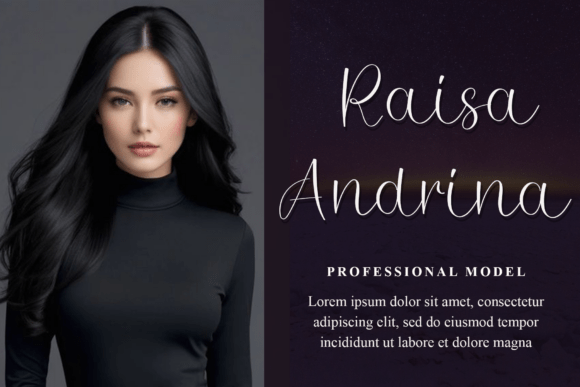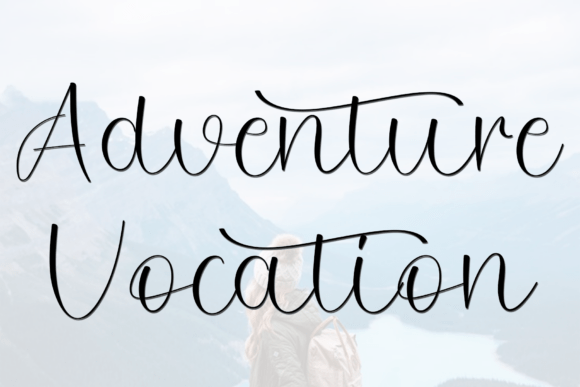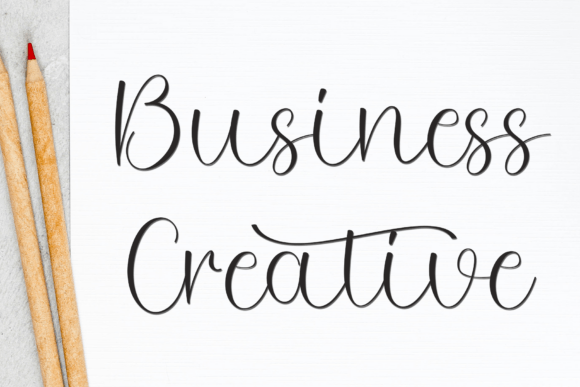
Introduction to Adventure Signature Font
Adventure Signature is a modern calligraphy font with a clean, elegant, and handwritten feel.
Its flowing strokes and smooth curves bring a natural and stylish touch, perfect for designs that need a personal yet polished vibe With its graceful letterforms and versatile look, Adventure Signature is ideal for wedding invitations, branding, social media graphics, logos, greeting cards, and creative packaging.
Key Features of Adventure Signature Font
Why Choose Adventure Signature Font?
Adventure Signature Font offers exceptional quality and versatility, making it a valuable addition to your design toolkit. Whether you’re creating for personal projects or commercial use, Adventure Signature Font delivers professional results.